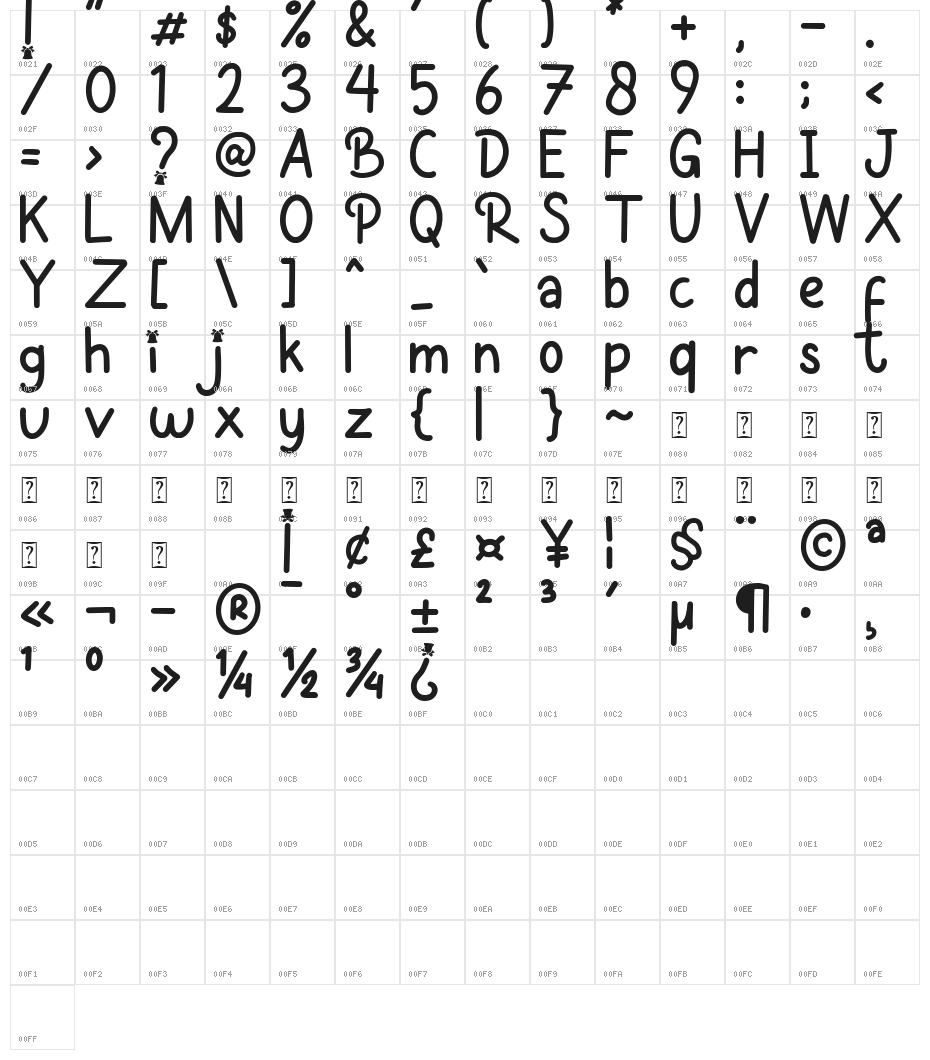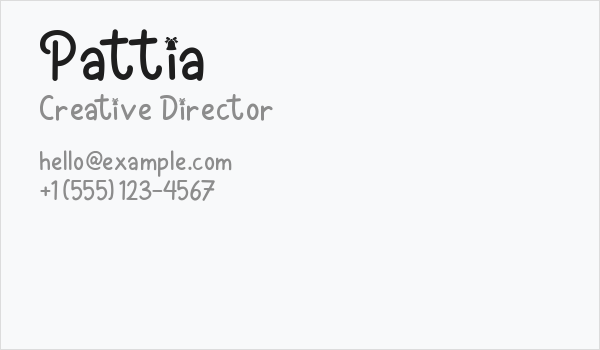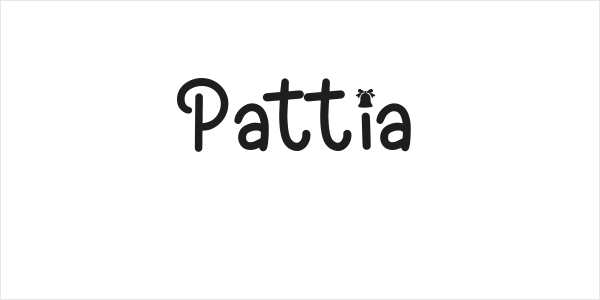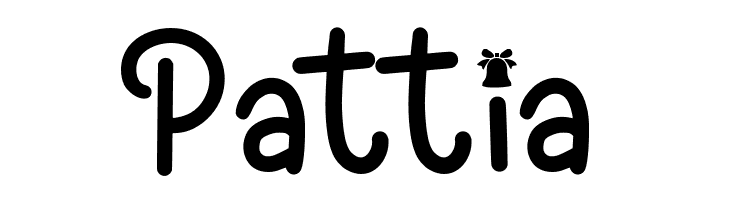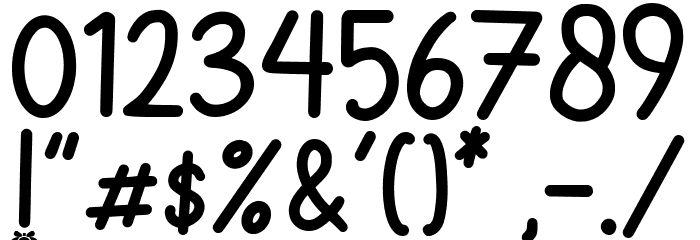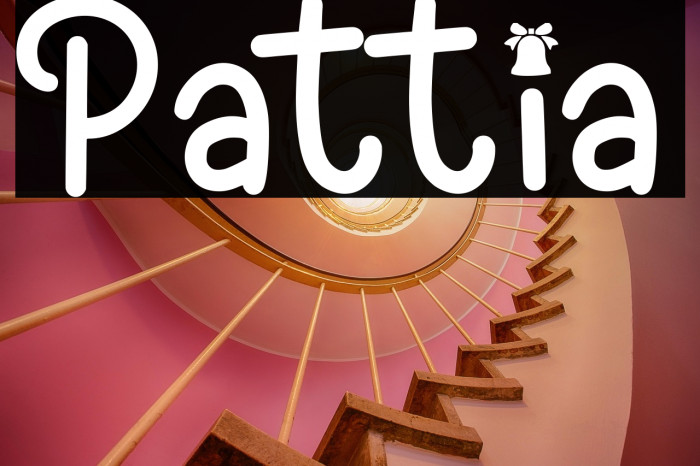
Pattia Font
| Gesamtstil | Playful |
| Vorgeschlagene Projekte | Ideal for children's books, greeting cards, playful branding, and creative posters. |